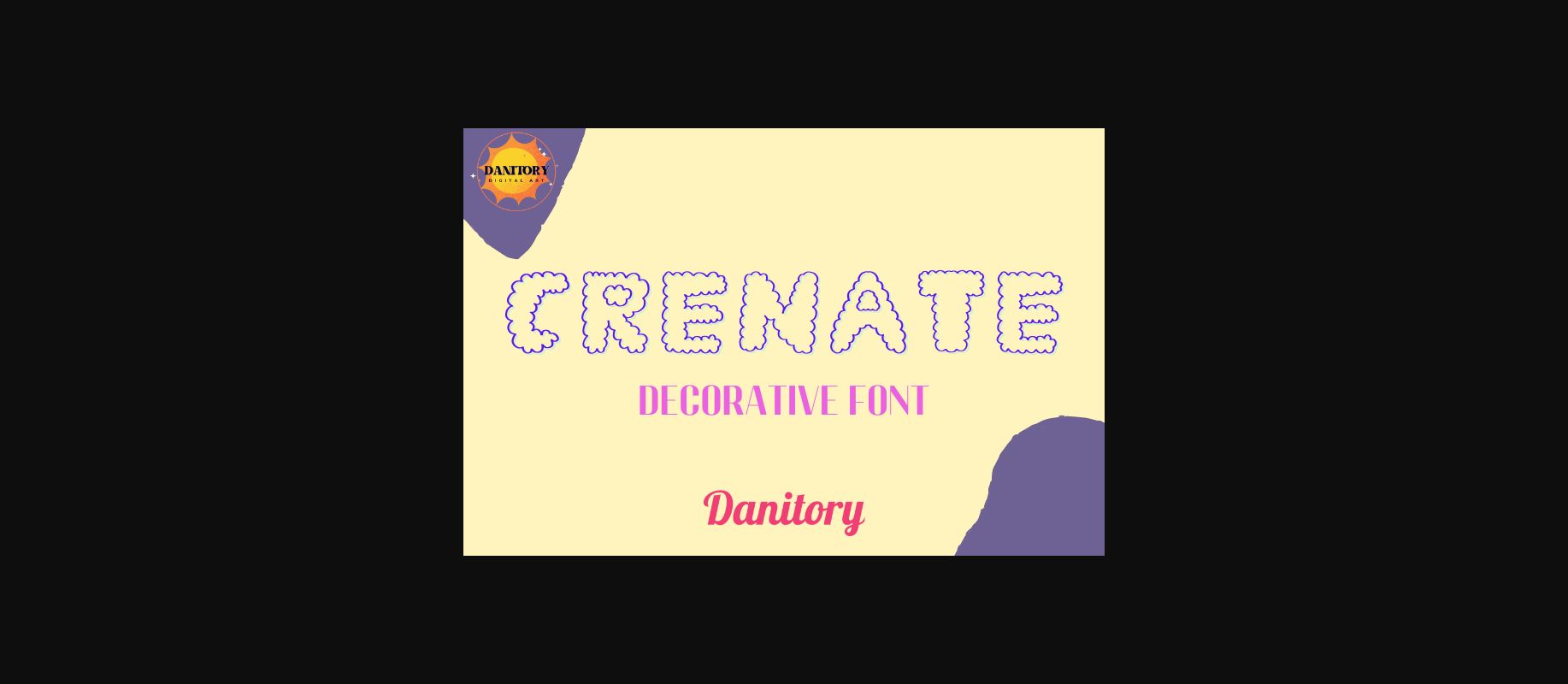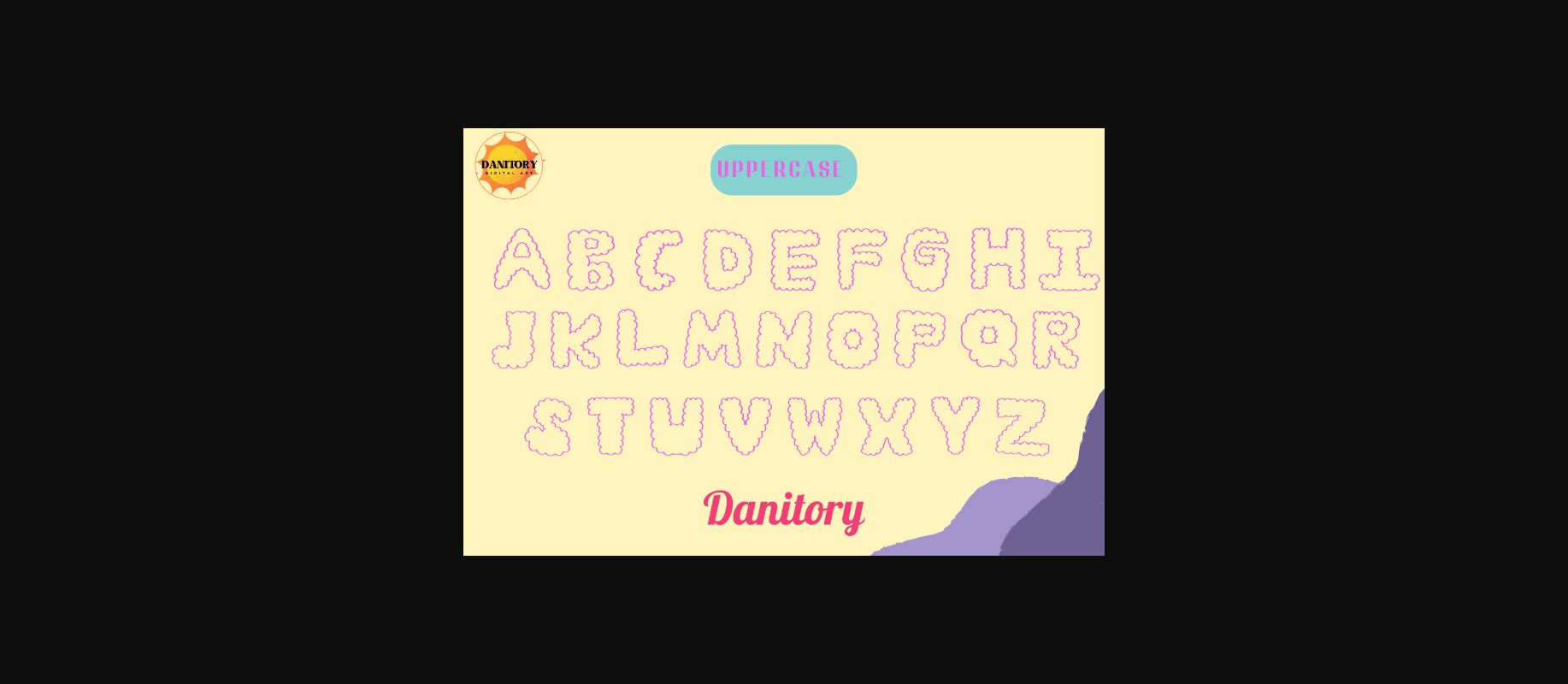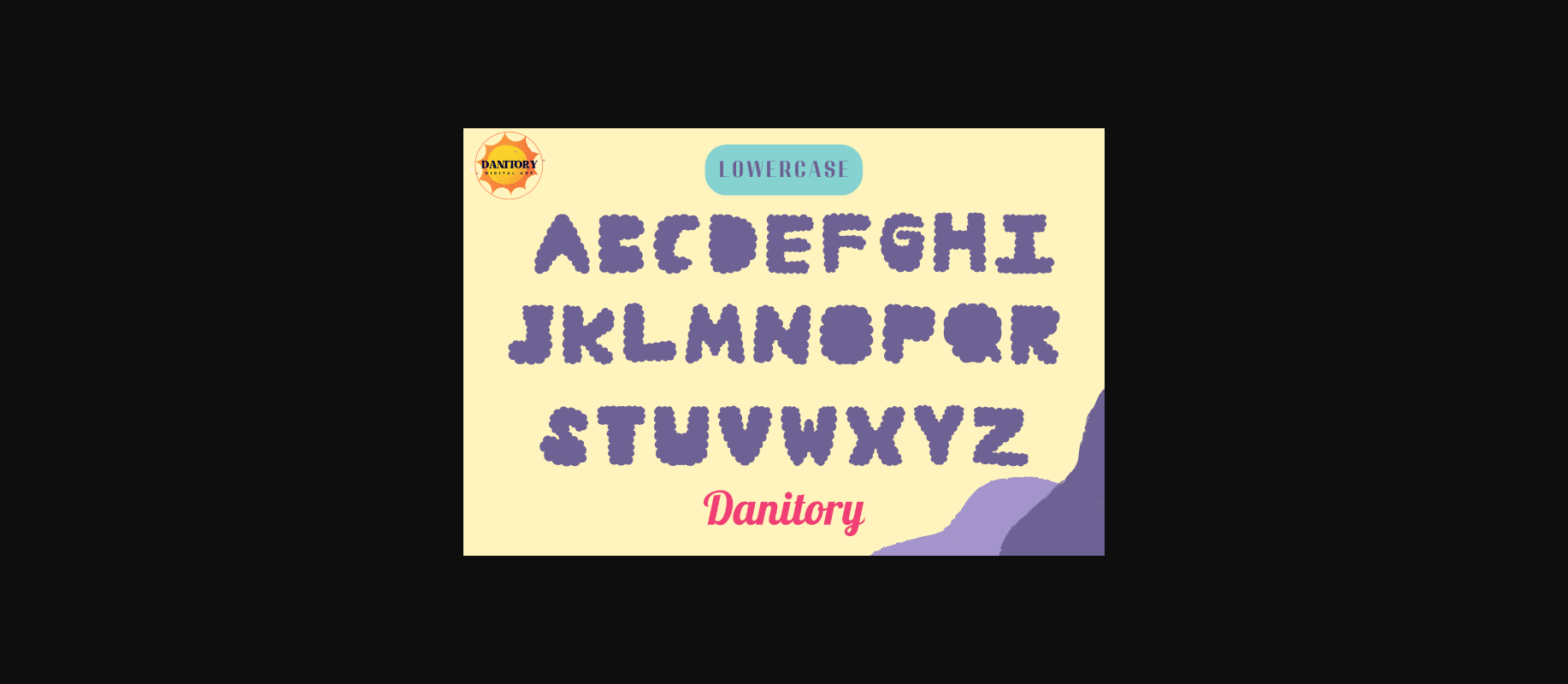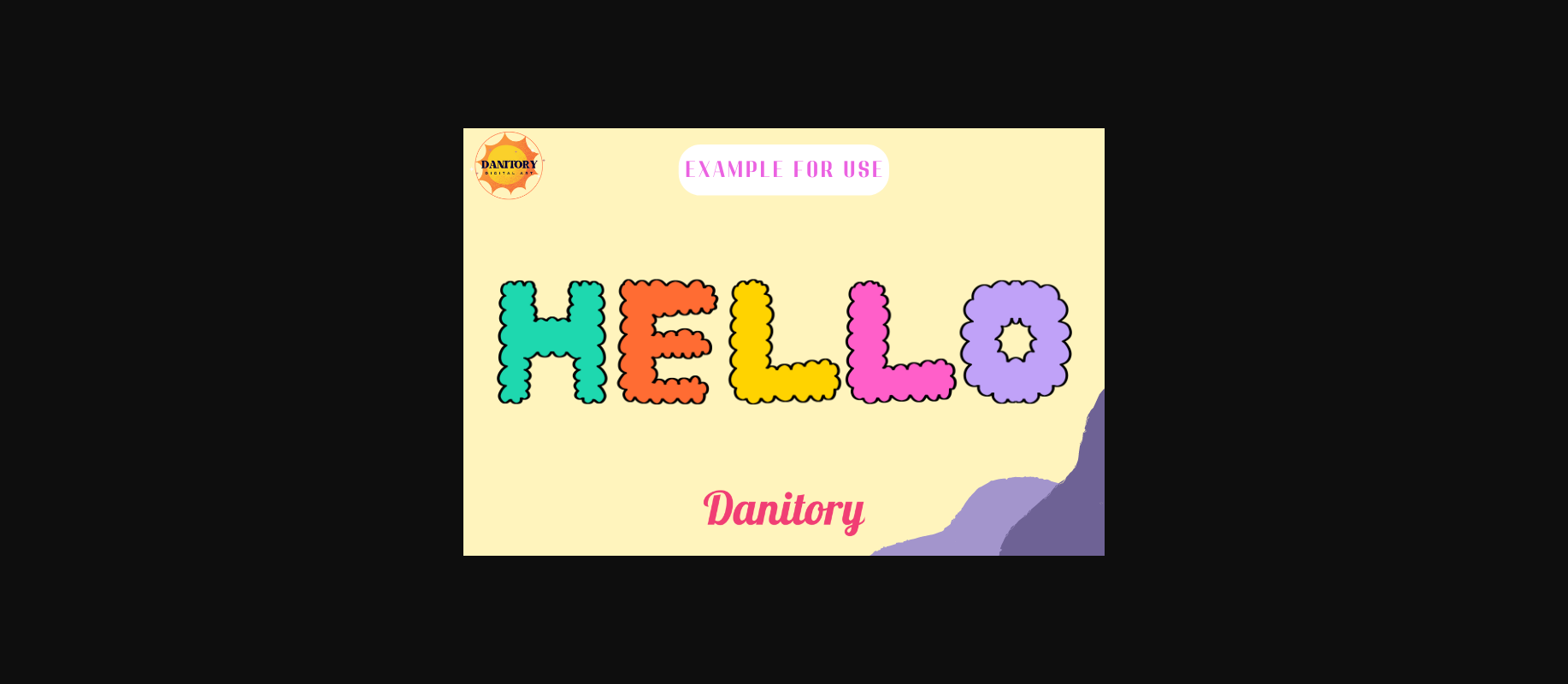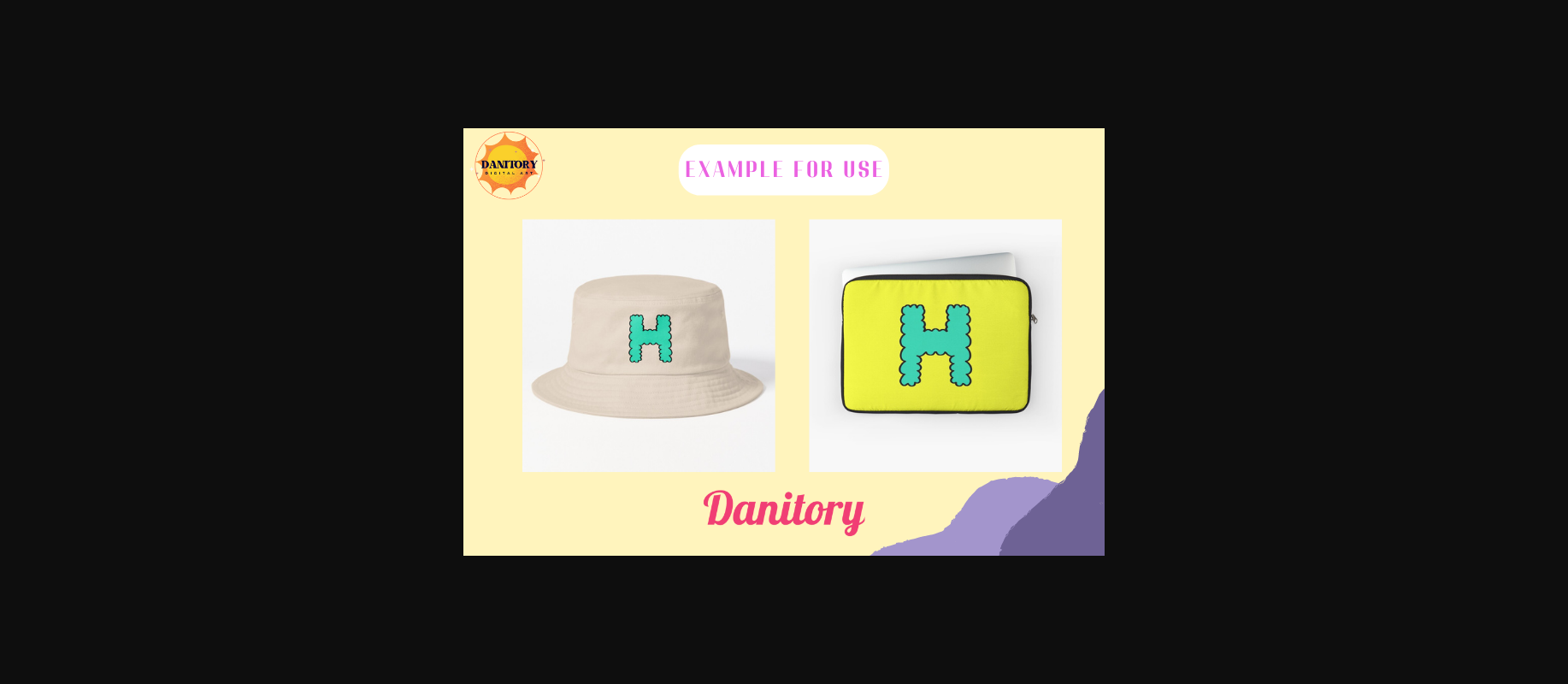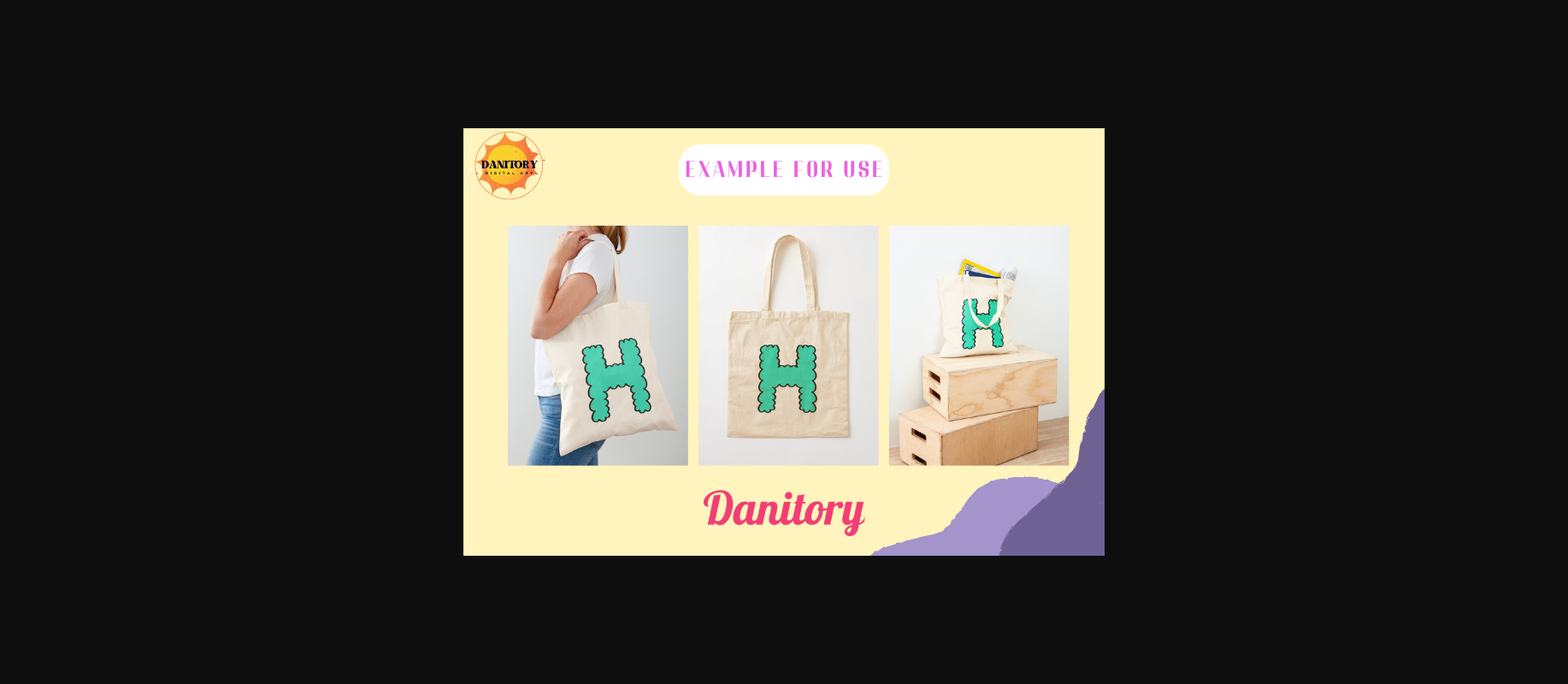
About Crenate Font
Crenate is a font where the letters are shaped as clouds, creating a unique and playful look. The letters are fluffy and rounded, adding a whimsical and fun element to any design.
The cloud-shaped font is perfect for a variety of applications, such as creating children’s books, posters, or social media content. It can also be used in branding or advertising to create a distinctive and memorable look.